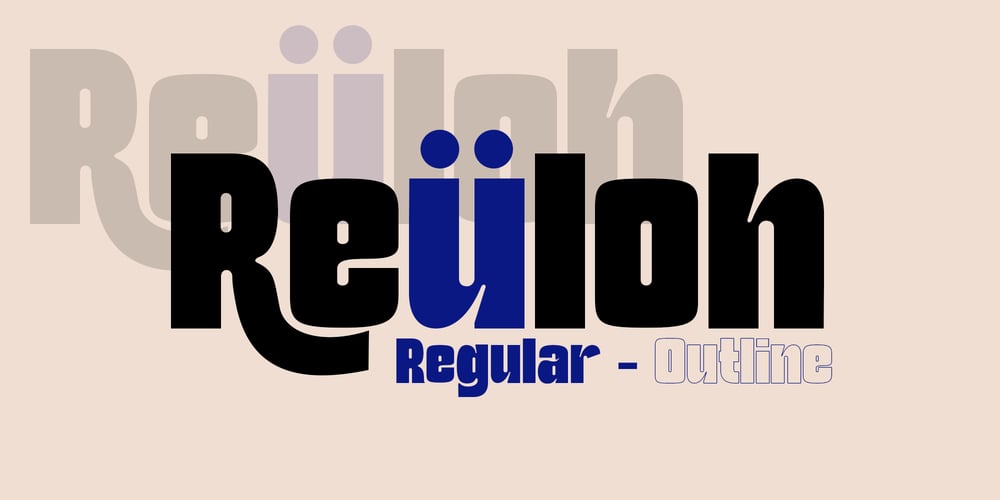
Reuloh
Reuloh font
Reuloh Font Family was designed by Arif Fadilah and published by Luhop Creative. Reuloh contains 2 styles and family package options. Reuloh is a set of font family, modern Geometric in which there are several combinations of unique style sets, so ready to help you to make your designs look elegant.Reuloh Each contains two ranging from Regular and Outline. The font includes more than 240 glyphs, covering all European languages written in Latin script.